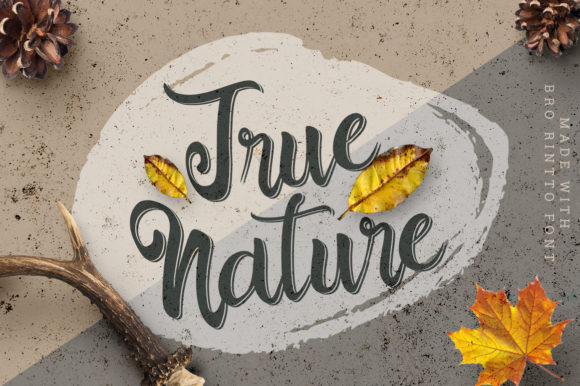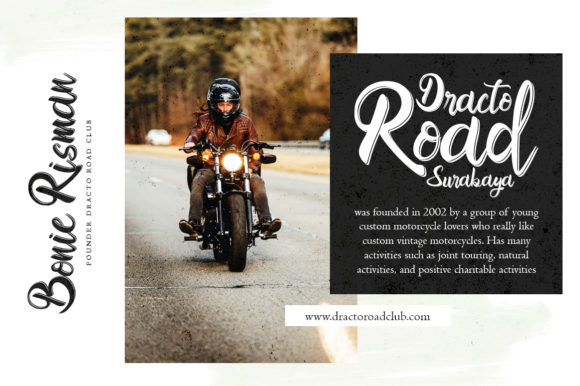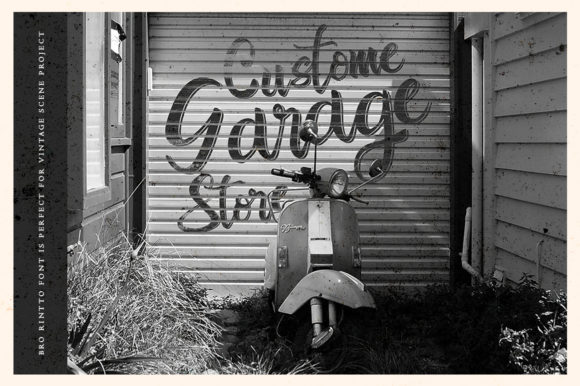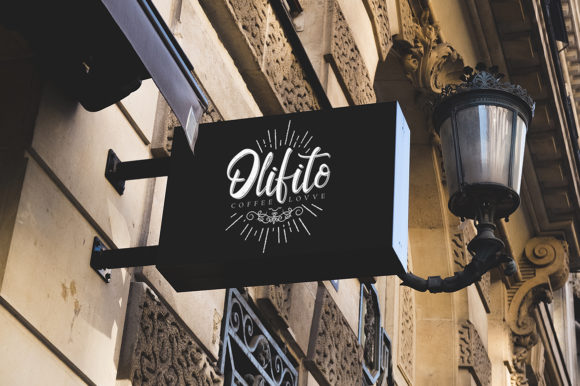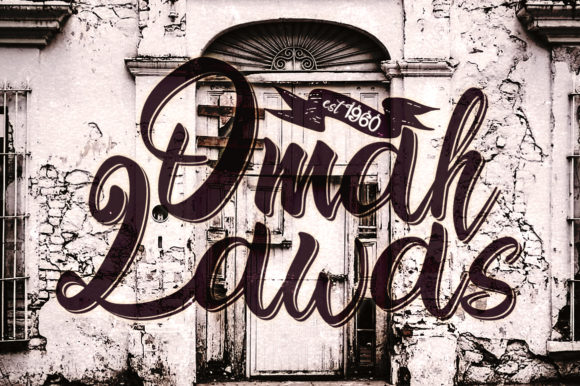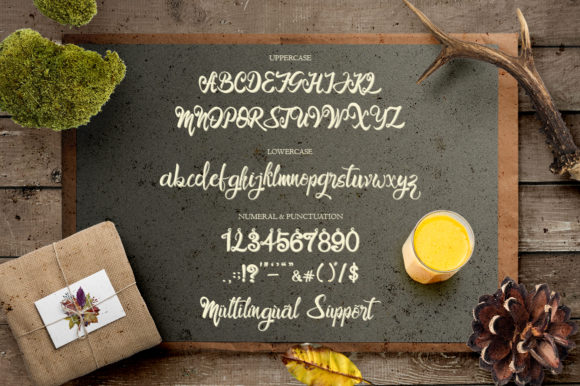
The Perfect Script for Your Next Design Project
You’ve finally landed a major design project, and you’re bursting with ideas. You envision a logo that exudes elegance, a watermark that adds a touch of sophistication, and a social media post that grabs attention. But, the right font can make all the difference. That’s where the Bro Rintto Font comes in – a unique handwritten font that adds a bold and shadow style to your designs.
As a designer, you know the importance of selecting the perfect font for your project. The Bro Rintto Font is a valuable addition to your toolkit, offering an elegant yet striking style that can elevate your designs from ordinary to extraordinary. Whether you’re working on logos, branding, photography, or social media posts, this font is sure to impress.
Bro Rintto Font Key Features
- Unique Characteristics: The Bro Rintto Font features a bold, modern design with rounded edges and a distinctive texture, adding a touch of sophistication to any layout.
- Legibility: The font is designed for optimal legibility, ensuring that text remains clear and easy to read, even at smaller font sizes.
- Language Support: The font supports a wide range of languages, including Latin, Cyrillic, and Greek scripts, making it a versatile choice for multilingual designs.
Bro Rintto Font Review
I recently had the chance to dive into the Bro Rintto font, and I must say it’s a unique addition to the world of typography. ✨ One of the things that really stands out to me is its playful, laid-back vibe, making it perfect for designs that need a touch of fun and relaxation. It’s great for projects like music festivals, summer campaigns, or even a laid-back restaurant’s brand identity.
Another thing I like about the Bro Rintto font is its versatility. ✨ It works well in both digital and print designs, and it’s a great choice for headings, titles, or even body text. The font’s bold and eye-catching personality makes it easy to grab the user’s attention, and its high legibility ensures that the message gets across clearly.
- ⚠️ Limited font sizes: The font may look a bit too playful and fun when used in smaller font sizes, making it less suitable for formal or professional designs.
- ⚠️ Limited font styles: The Bro Rintto font comes in only one weight, which may limit its use in certain design contexts.
Overall, I think the Bro Rintto font is a great addition to any designer’s toolkit. While it may have some limitations, its unique personality and versatility make it a great choice for a wide range of projects. If you’re looking for a fun and eye-catching font to add some personality to your designs, the Bro Rintto font is definitely worth checking out.
Bro Rintto Font is a bold and playful font that works well for headings and titles. To get the most out of it, use it sparingly and pair it with a clean and simple font for body text.
Bro Rintto Font is commonly used for:
- Social media graphics
- Print materials such as flyers and posters
Alternatives to Bro Rintto Font
Fontin is a sans-serif font with a geometric and modern look. It’s suitable for use in headings, titles, and body text where a clean and minimalist design is required. Fontin is more versatile than Bro Rintto Font, with a larger character set and better support for international languages.
Comparison: While both fonts are sans-serif, Fontin has a more rounded and friendly appearance, whereas Bro Rintto Font has a more angular and edgy feel.
Montserrat is a geometric sans-serif font with a strong, modern look. It’s ideal for use in headings, titles, and body text where a sense of sophistication and elegance is required. Montserrat is more condensed than Bro Rintto Font, making it suitable for use in smaller spaces.
Comparison: While both fonts are geometric sans-serif, Montserrat has a more condensed and modern appearance, whereas Bro Rintto Font has a more expansive and edgy feel.
Open Sans is a clean and modern sans-serif font with a friendly appearance. It’s suitable for use in body text, headings, and titles where a neutral and approachable design is required. Open Sans is more legible than Bro Rintto Font, with better readability at small font sizes.